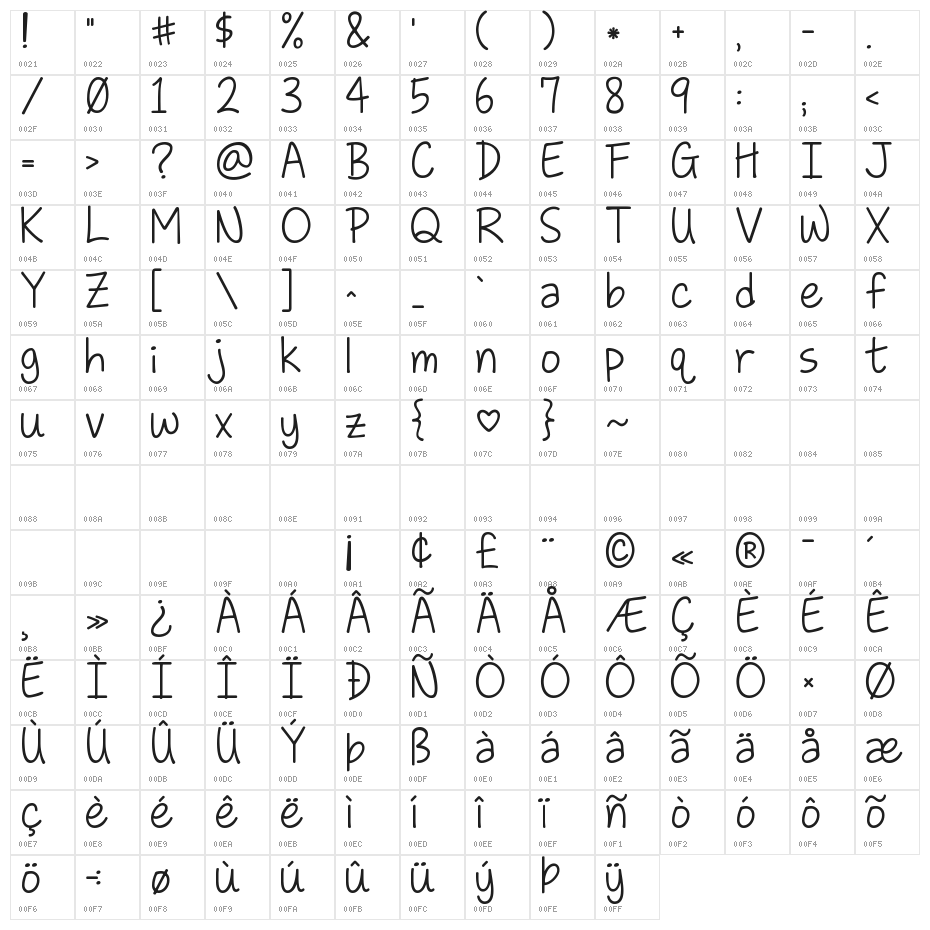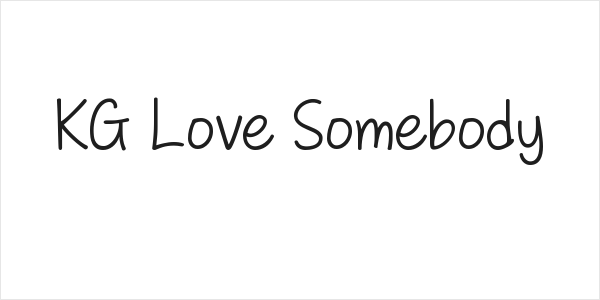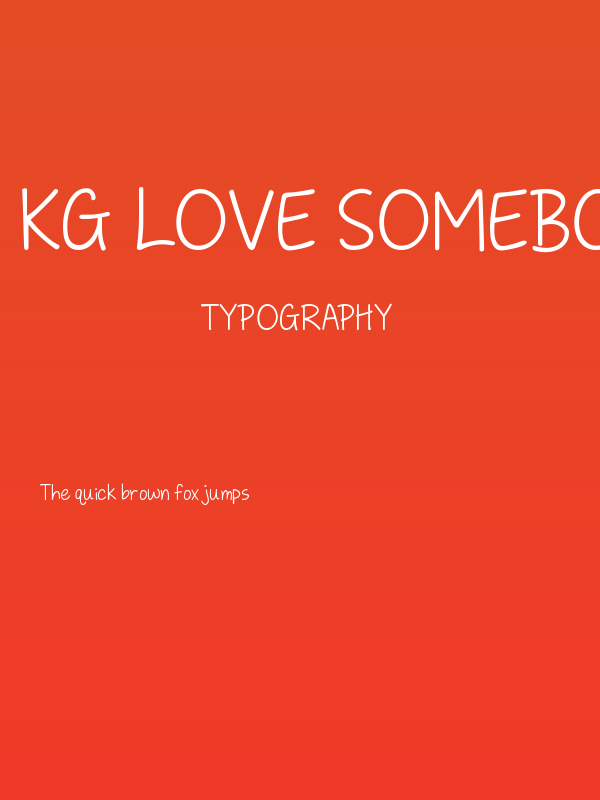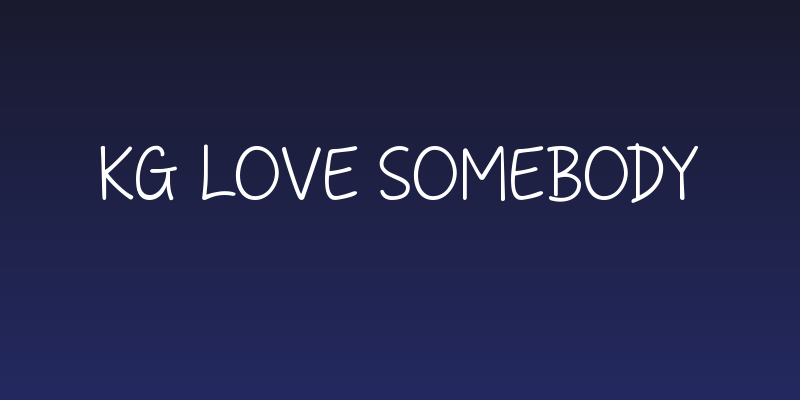
KG Love Somebody Font
KG Love Somebody Description
This playful and whimsical font features a handwritten style with a casual and friendly appearance. The letters are slightly irregular, giving it a personal touch that mimics natural handwriting. The strokes are smooth and rounded, contributing to its approachable and informal feel. The uppercase and lowercase letters maintain a consistent style, with a slight slant that adds to its dynamic character. The numerals and special characters are designed to match the overall aesthetic, ensuring a cohesive look across all text elements.
Overall StyleCasual
Use CaseHeadlines, Informal text, Personal projects
Proposed ProjectsIdeal for greeting cards, children's books, personal blogs, and informal branding projects.